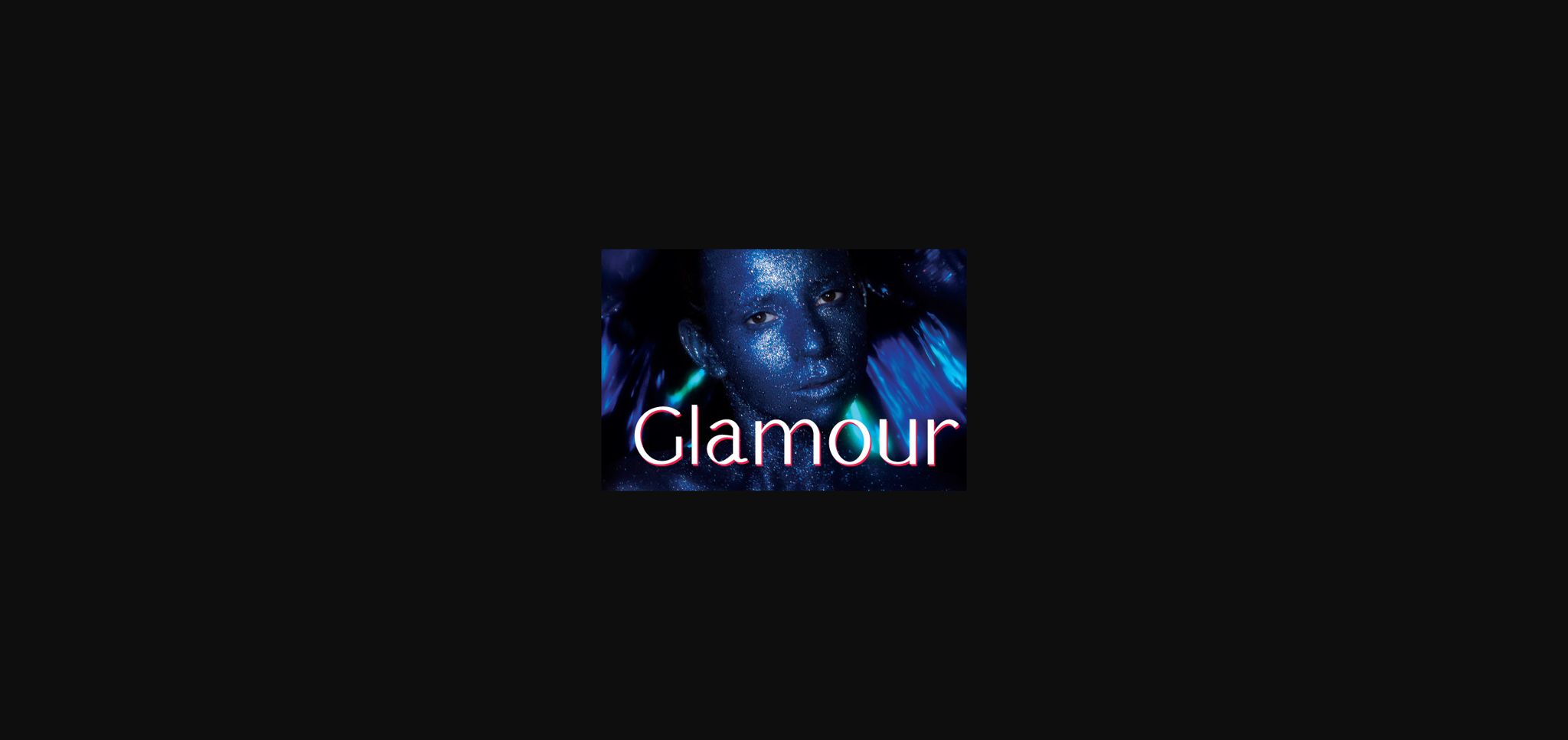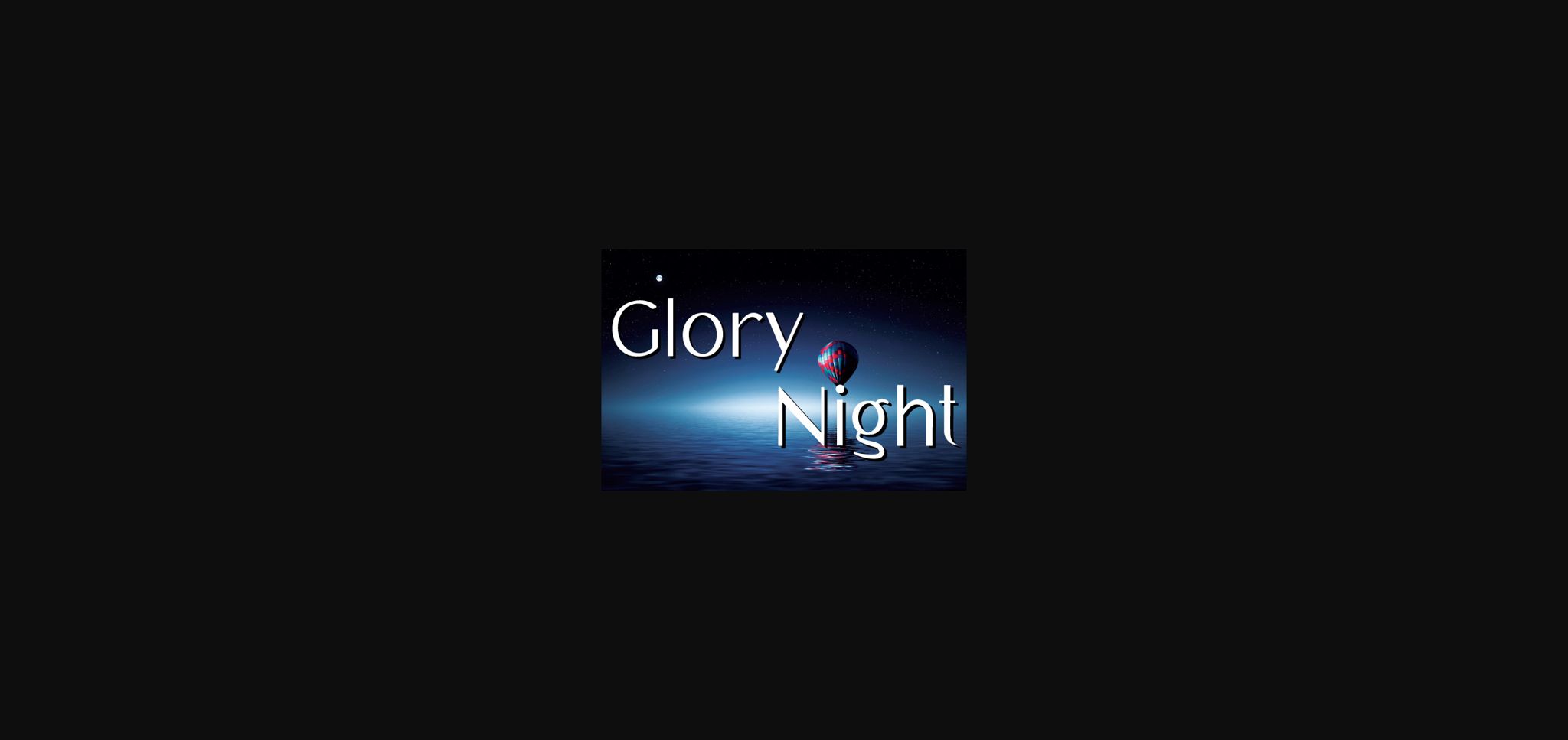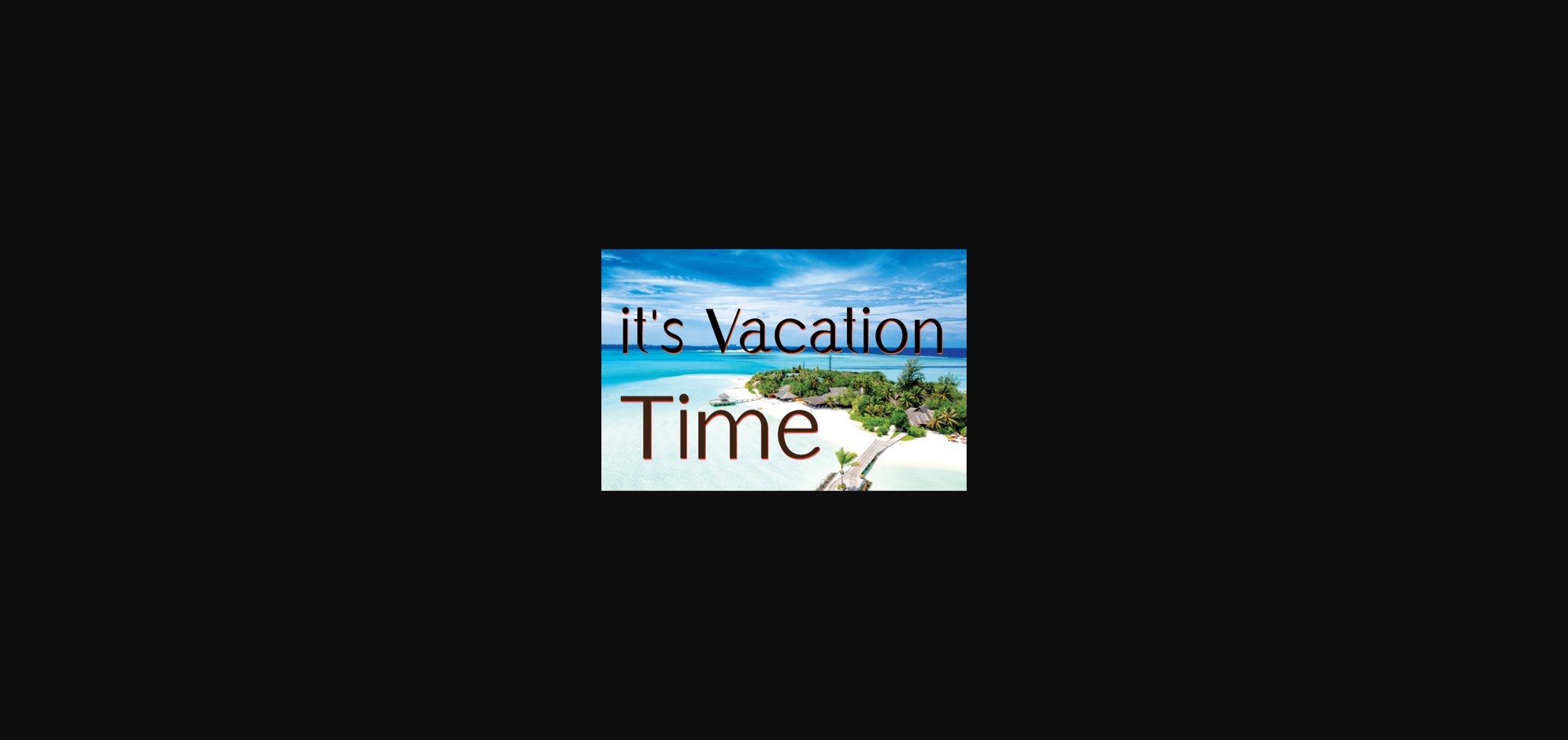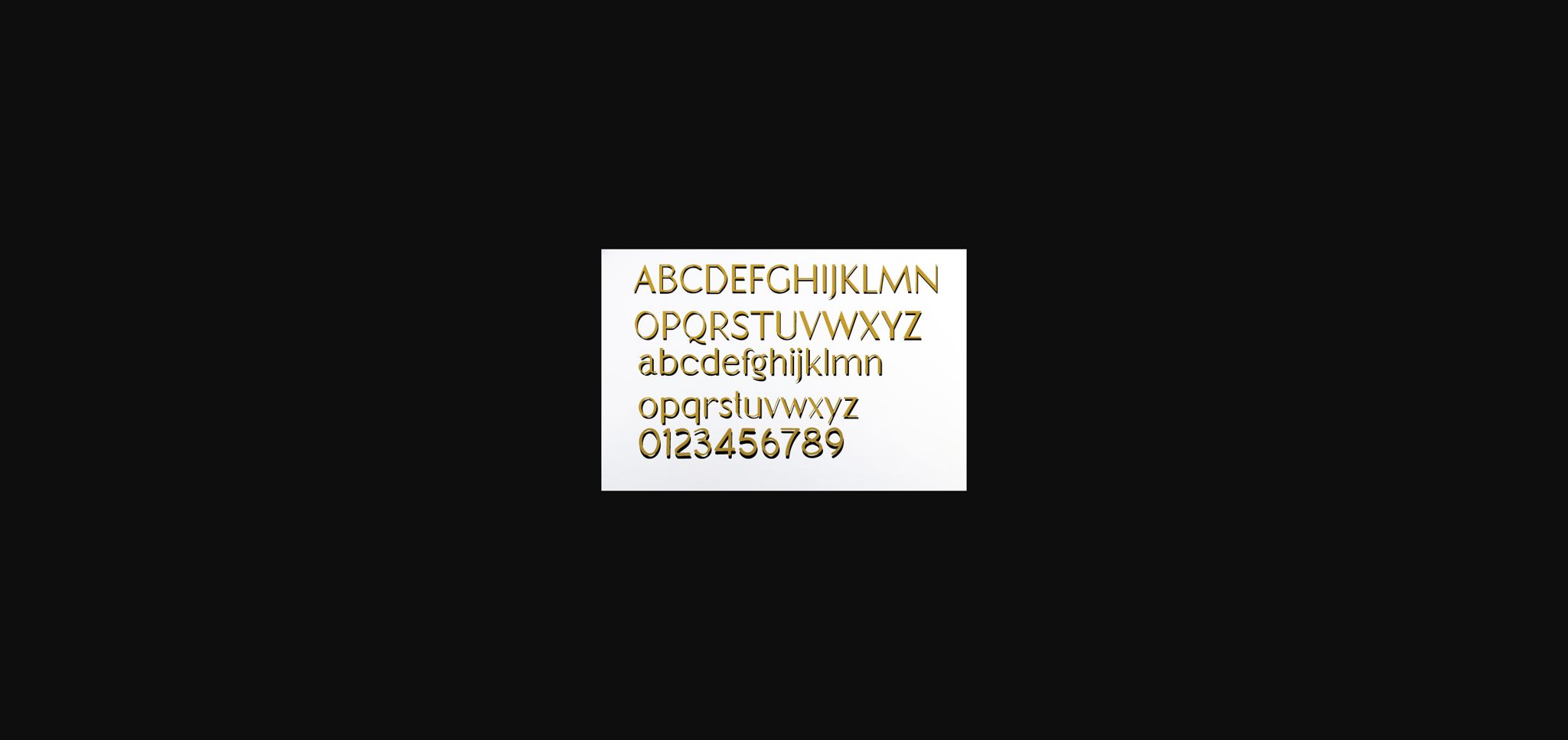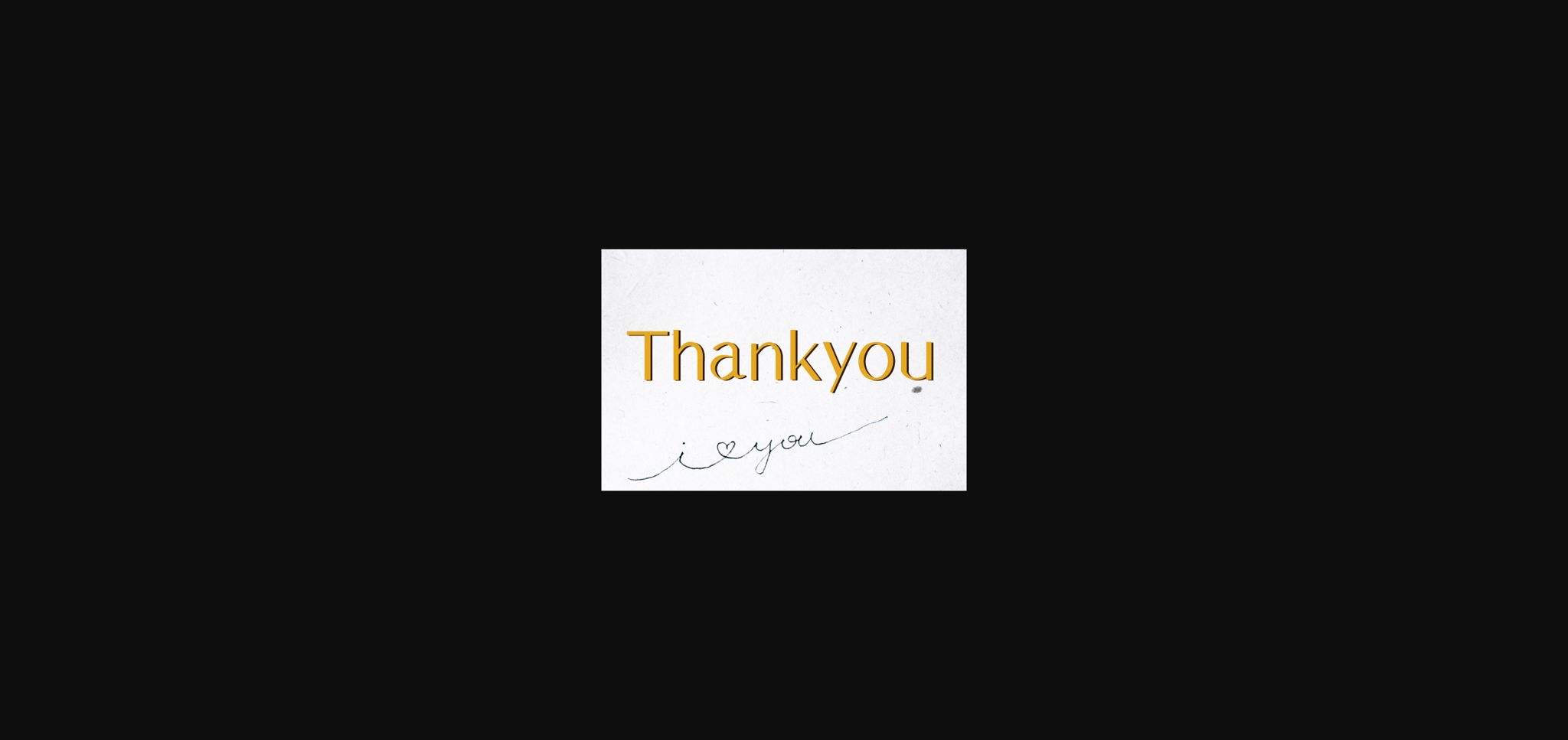
Glorynight Font
About Glorynight Font
Glorynight is a stylish and clean sans serif font. No matter the topic, this font will be an incredibly asset to your fonts’ library, as it has the potential to elevate any creation.